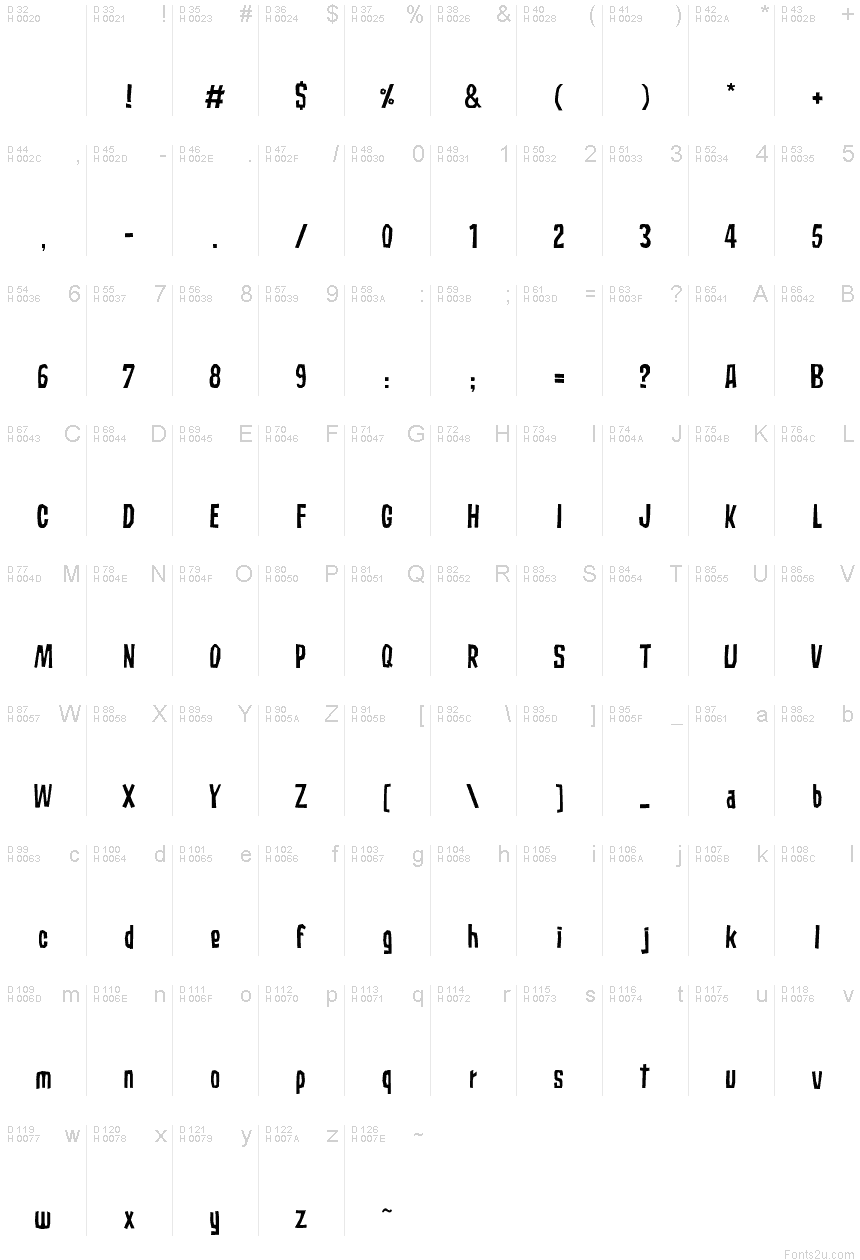
Subaccuz-Normal
Subaccuz, a free distorted display font from Sub Communications, leans into a rough urban cut-up look with tall, uneven letters and blunt, hacked-off edges. The shapes feel squeezed, stretched, and slightly unstable, giving the font a handmade poster energy that lands somewhere between street graphics and early-2000s experimental branding.
It fits music flyers, skate or club branding, zine covers, title cards, and short poster headlines where that jagged rhythm can do the work. As a free font, it makes most sense in brief display settings, especially logos or cover lines that benefit from its lopsided vertical pull and deliberately awkward attitude.